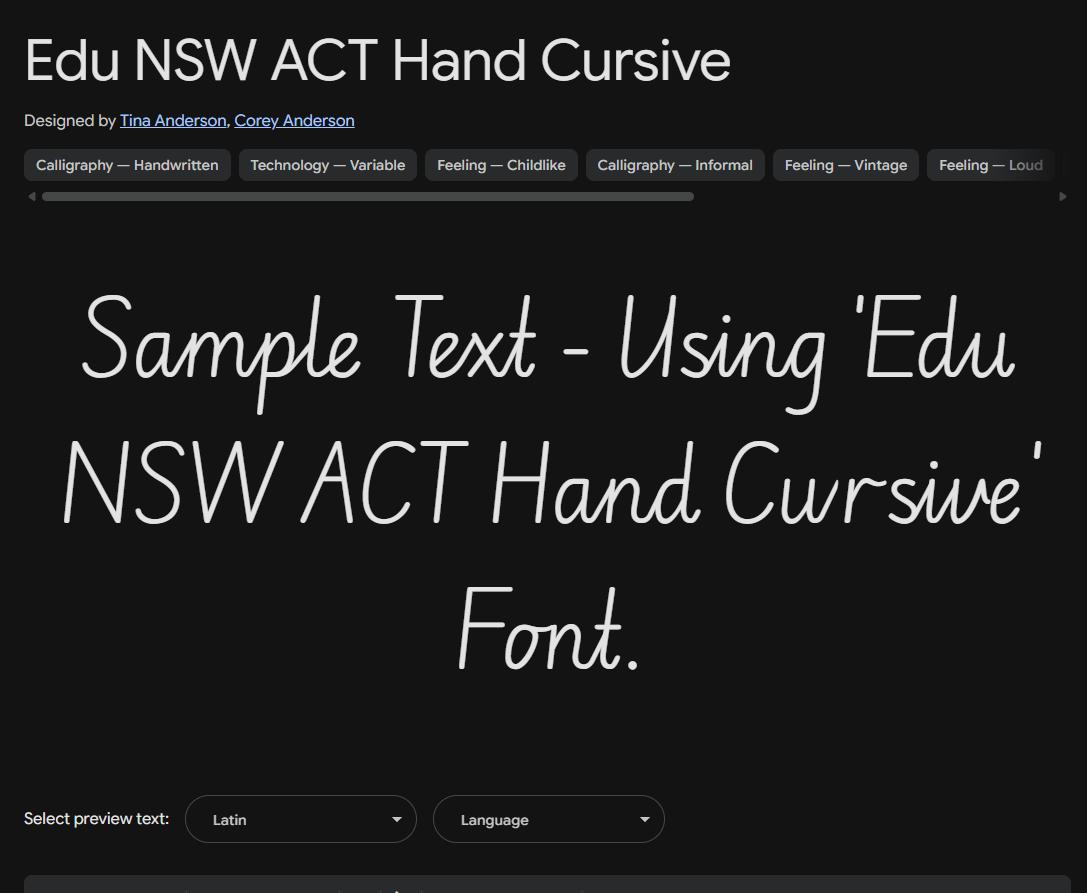
The Edu NSW ACT Hand Cursive typeface, engineered by Tina Anderson and Corey Anderson, serves as a high-fidelity digital bridge between traditional Australian pedagogical standards and modern variable font technology. By implementing a single-axis interpolation system, the font allows for fluid transitions in stroke weight while maintaining the strict structural integrity of the New South Wales and Australian Capital Territory foundation styles. This OpenType-driven solution prioritizes typographic legibility through optimized kerning pairs and precise cursive joinery, ensuring that the letterform architecture remains consistent for student modeling. As a variable font, it offers a unique technical advantage by enabling responsive adjustments to optical sizing and weight, providing a scalable typographic environment that supports handwriting acquisition across diverse digital interfaces and print-based educational materials.
The Edu NSW ACT Hand Cursive font family represents a sophisticated fusion of pedagogical standards and modern OpenType variable font technology, transforming traditional Australian classroom calligraphy into a dynamic digital experience. By leveraging a continuous weight axis and responsive glyph interpolation, this variable typeface captures an informal, handwritten aesthetic that oscillates between a rugged, textured vintage charm and a loud, active presence optimized for high-impact educational displays. Its childlike and playful essence is grounded in the precise stroke terminals of the NSW Foundation Style, yet it maintains a happy, kinetic energy that feels both nostalgic and contemporary. This intersection of informal calligraphy and technical flexibility allows developers to evoke an authentic, "hand-drawn" feeling while maintaining the semantic integrity of a digital-first typeface, effectively bridging the gap between historical handwriting pedagogy and the fluid requirements of modern responsive web design.
While the Edu NSW ACT Hand Cursive variable font serves as a benchmark for foundational literacy within Australian pedagogical frameworks, its implementation in high-stakes corporate legalities, pharmaceutical labeling, or technical engineering schematics represents a significant semiotic misalignment and functional risk. Engineered by Tina Anderson and Corey Anderson to strictly adhere to state-mandated k-12 handwriting scripts, the typeface's fluid joining logic and continuous stroke modulation are optimized for tactile learning rather than the rapid "glance-value" required in medical telemetry or complex data visualization. In professional sectors governed by ISO standards for document legibility, the inherent variability and instructional entry-exit flourishes of this school-state cursive can compromise optical character recognition (OCR) workflows and violate the rigid typographic hierarchy necessary for risk-mitigation data, where high x-height clarity and distinct terminal junctions are paramount over the rhythmic, connective aesthetics of a primary education script.
The font utilizes advanced OpenType features to seamlessly connect characters in real-time as the user types. By leveraging the "calt" (Contextual Alternates) feature, the rendering engine dynamically selects glyph variants based on neighboring characters to maintain a consistent baseline stroke.
This handwriting style is primarily implemented across primary schools in New South Wales and the Australian Capital Territory. Education departments in these regions mandate this specific ductus, which differs significantly from the QCursive or Victorian Modern Cursive styles used in other states.
The font family includes various weights to accommodate both instructional displays and student workbooks for varied visibility needs. The collection typically ranges from a 400-weight Regular for standard body text to a 700-weight Bold optimized for high-contrast visibility on interactive whiteboards.
Most versions of this typeface include a dedicated Foundation or Print style designed specifically for early childhood learners. These variants focus on unjoined letterforms with simplified skeletons to assist in phonics-based orthographic development before students transition to cursive joining.
Specialized versions of the font incorporate directional arrows and numbered guides to instruct students on the correct stroke order. These glyphs often utilize a layered "Trace" OTF format where vector directional indicators are mapped to specific Unicode character slots for instructional clarity.
The cursive variant includes specific looped descenders and ascenders intended for students who have mastered basic joining and are moving toward fluency. These "speed loops" are governed by GSUB (Glyph Substitution) tables that replace standard terminals with ornamental loops once a student reaches the requisite developmental milestone.
The typeface includes a comprehensive set of basic punctuation, numerals, and common mathematical operators required for primary education. The character map is extended to include localized currency symbols and arithmetic glyphs, ensuring full compliance with the Australian National Curriculum requirements.
This style features distinct letter shapes and terminal angles compared to the Victorian Modern Cursive standard used in southern states. While Victorian Modern Cursive utilizes a specific 45-degree exit stroke, this variant employs a flatter approach and different configurations for complex characters like lowercase "f" and "k".